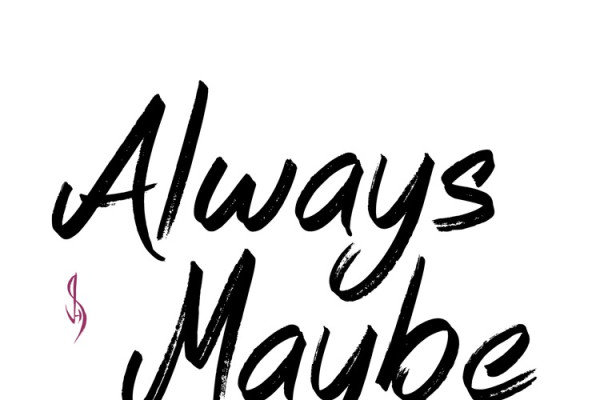
Always Maybe Font
Always Maybe Font is this cool hand-written brush font. “Always Maybe”. Perfect for advertising purposes, including invitation cards, book covers, shirts, posters, logos and much more!